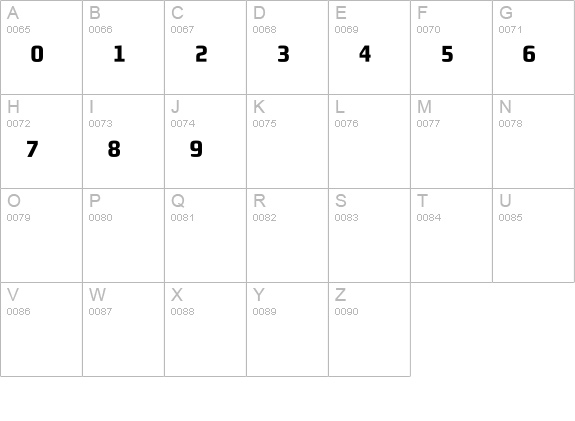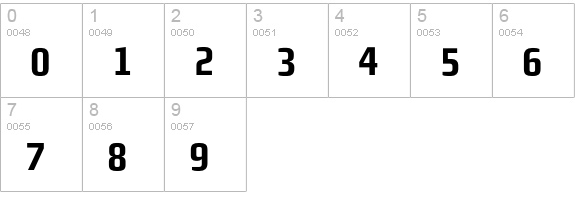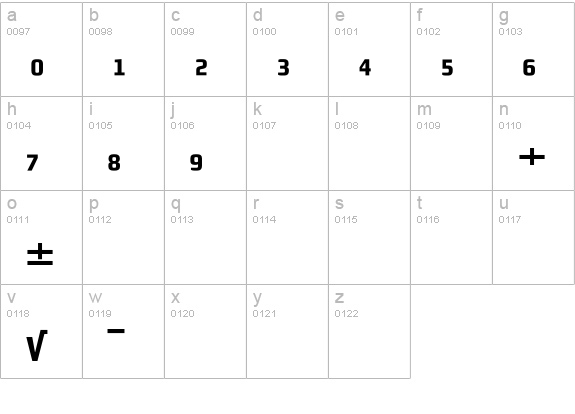
MorganSansCond BoldFigures Font Details
MorganSansCond BoldFigures is a versatile and modern typeface that exudes confidence and power. With its bold and striking figures, this font is perfect for making a statement and capturing attention. The clean lines and sharp edges of MorganSansCond BoldFigures give it a sleek and professional look, making it ideal for a wide range of design projects. What makes MorganSansCond BoldFigures even more appealing is that it is available for free download at FontsMarket.com. This means that you can easily access this high-quality font without any cost, making it a valuable addition to your font collection. Whether you are working on branding, advertising, or any other design project, MorganSansCond BoldFigures is sure to make a bold impression. Download it today and elevate your designs with this exceptional font.